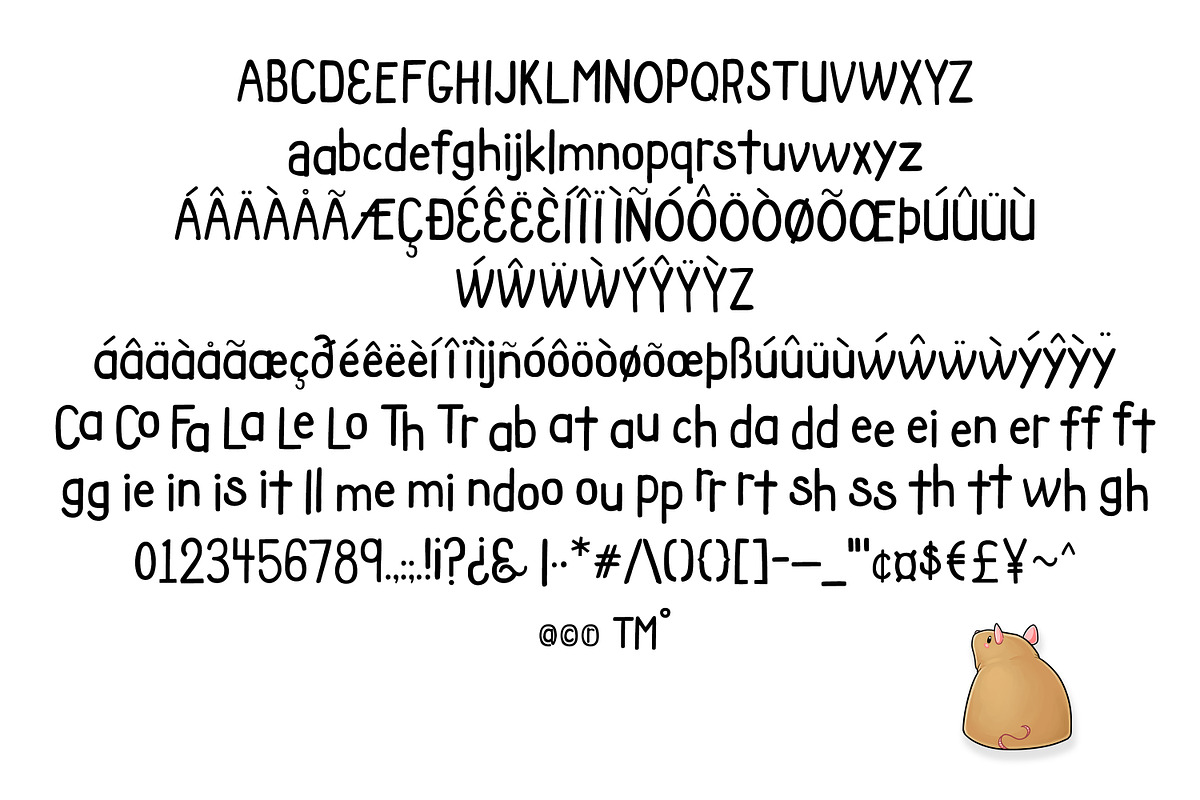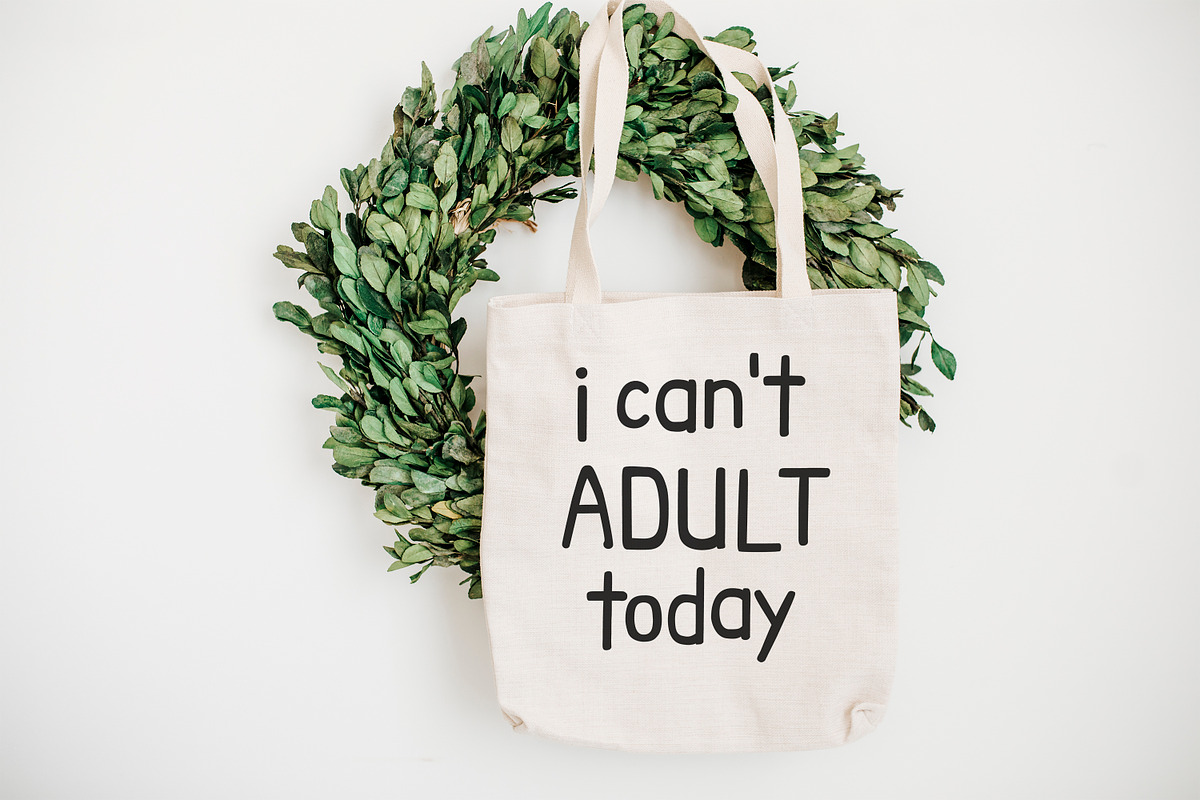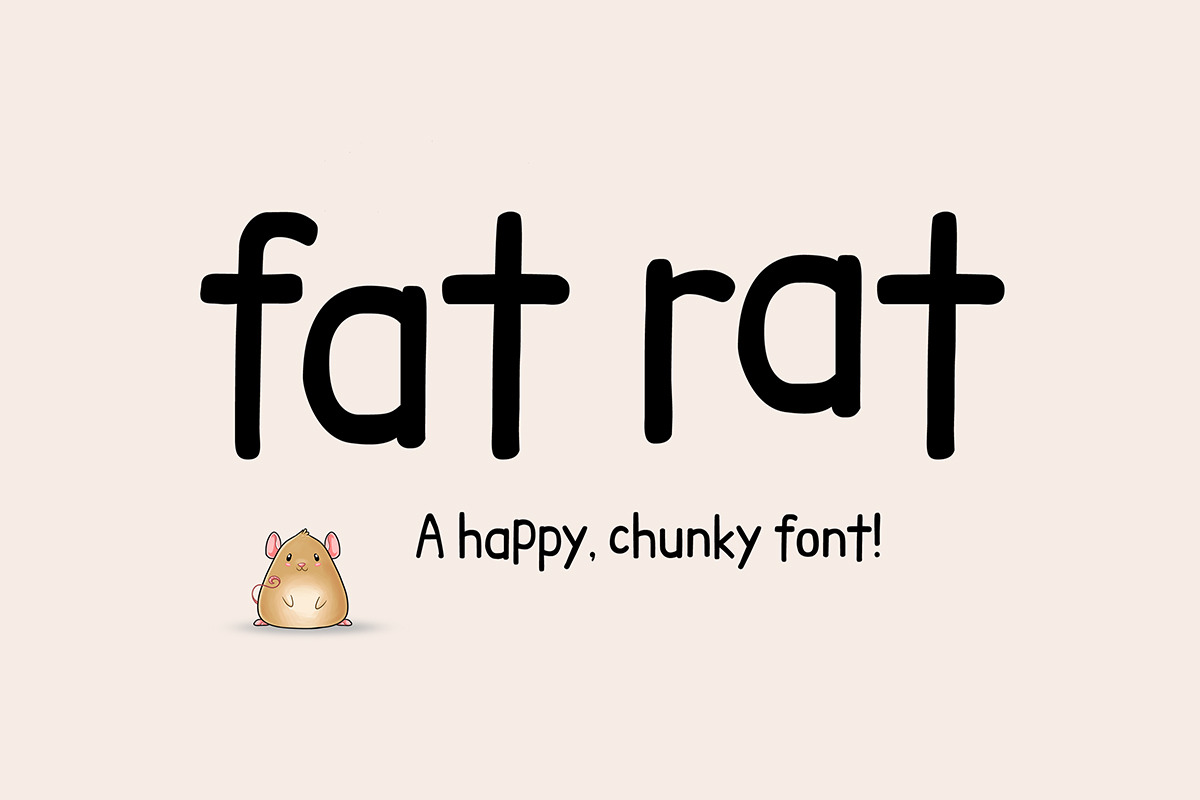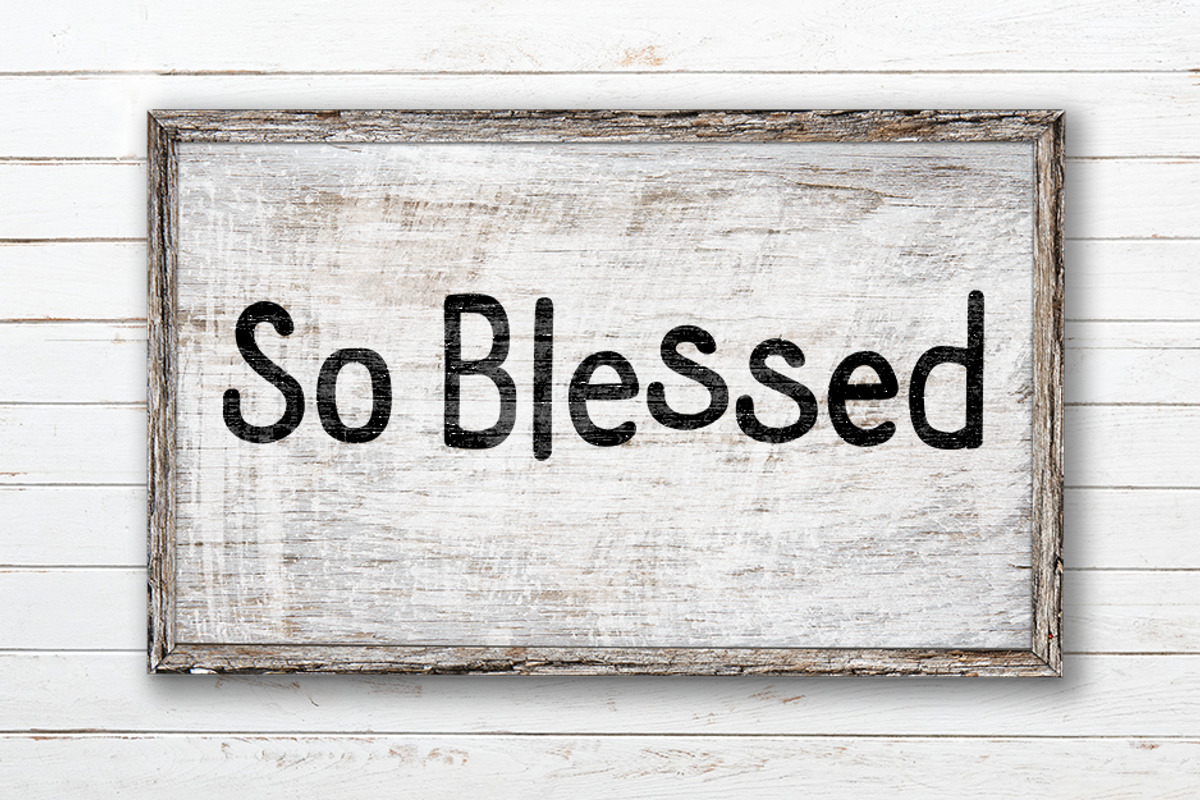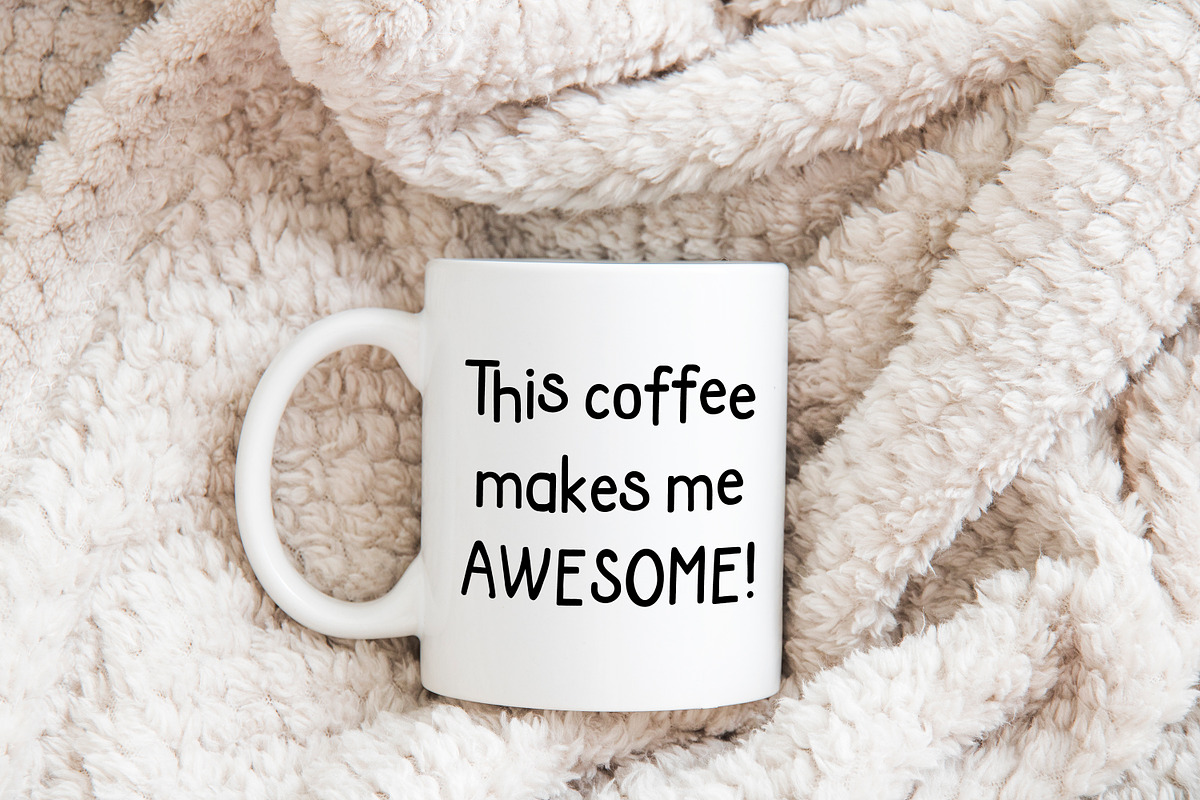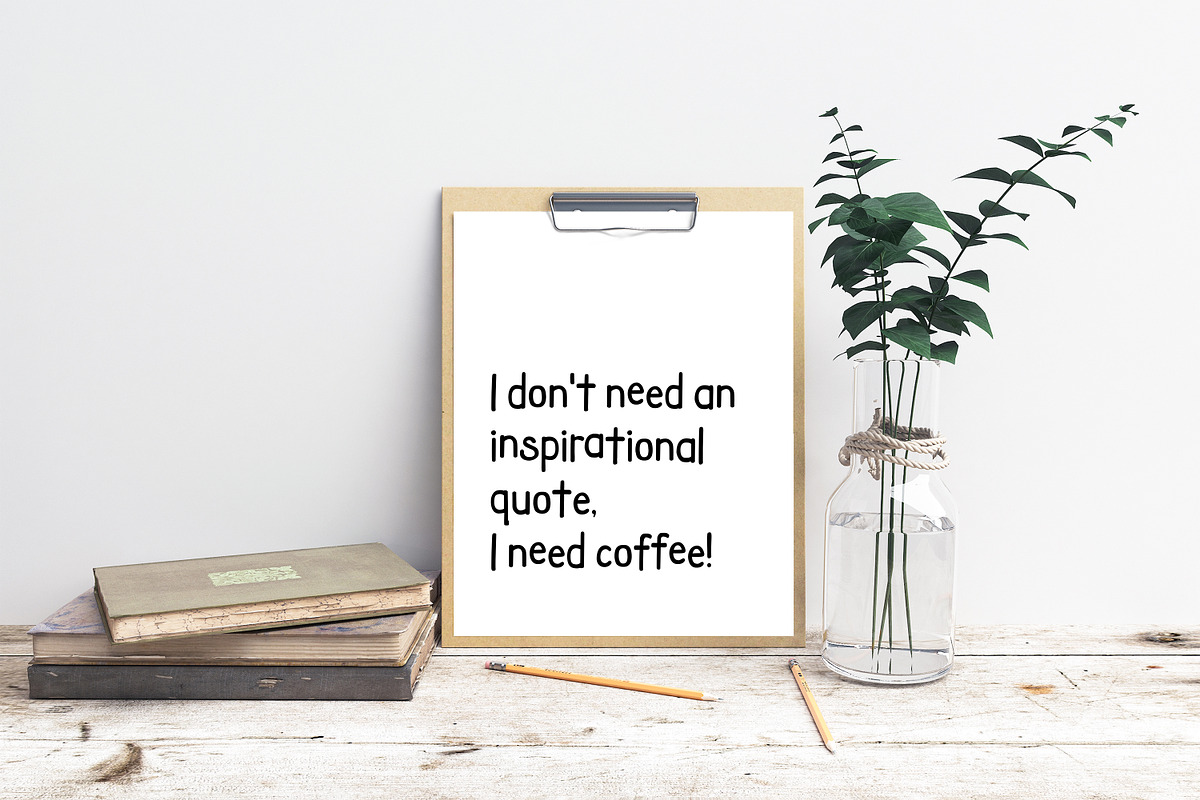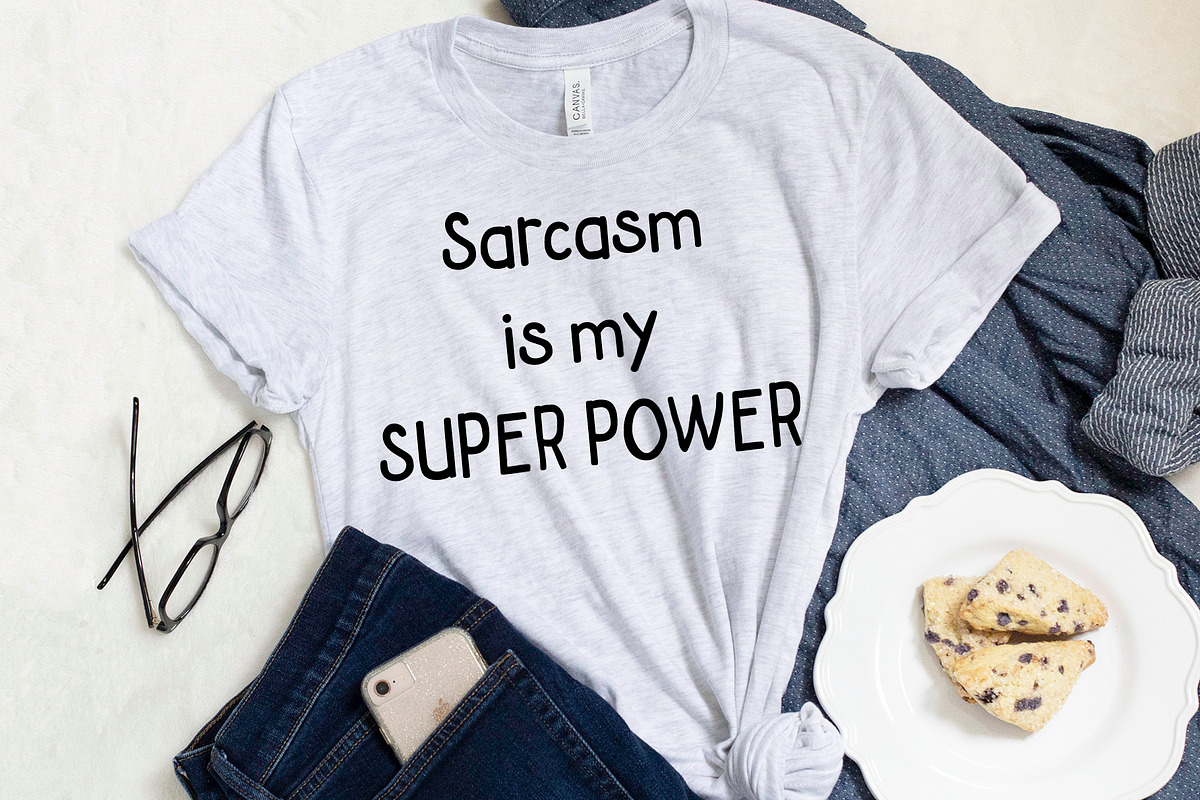
Fat Rat Chunky Font
This is a thick font with lots of character! Ideal for Craft Projects!
All uppercase letters with a few alternatives All lower case letters with a few alternatives Stylistic Alternatives Multi- language support with the Western European diacritics. In OTF form
Language Support in: Afrikaans Albanian Catalan Croatian Czech Danish Dutch English Estonian Finnish French German Greek Hungarian Icelandic Italian Latvian Lithuanian Maltese Norwegian Polish Portugese Romanian Slovak Slovenian Spanisch Swedish Turkish Zulu